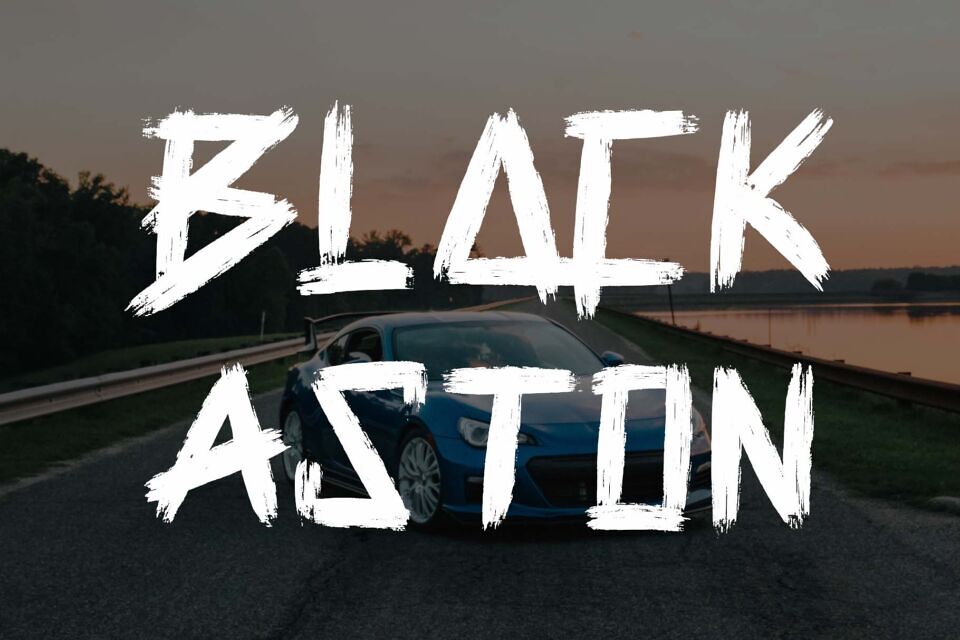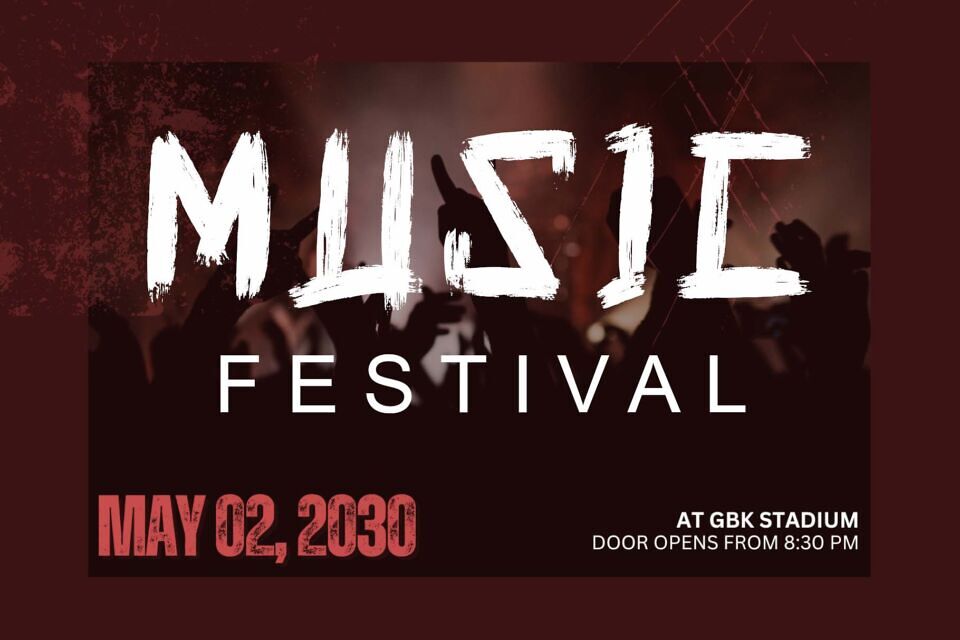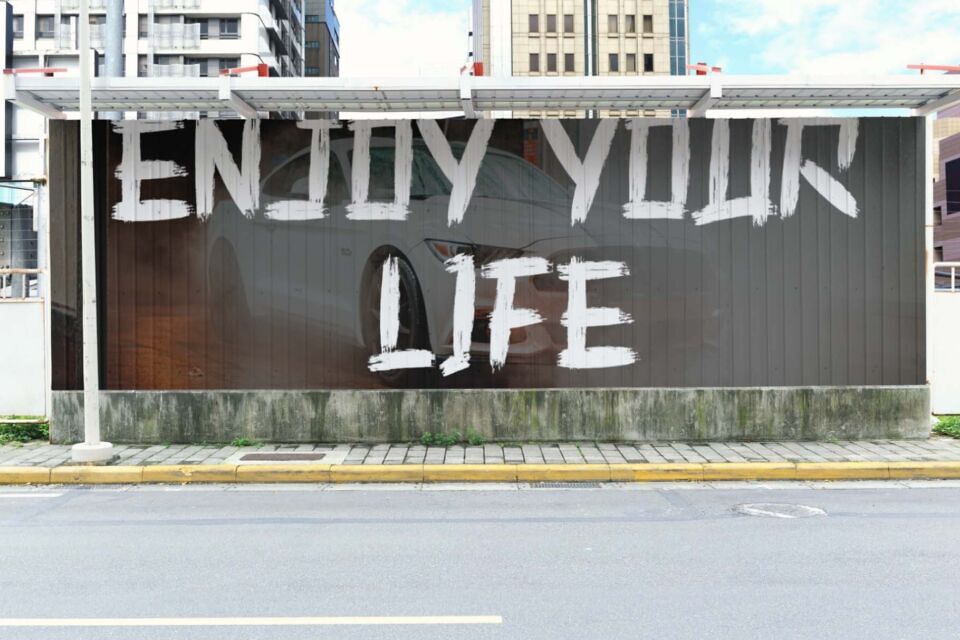
Battle Race is a unique, elegant and modern brush font. This font is equipped with uppercase, lowercase, numeral, punctuation, ligatures and multilingual support. Very suitable for stickers, posters, prints, banners, branding, movie titles, book titles, logos, business branding and others.